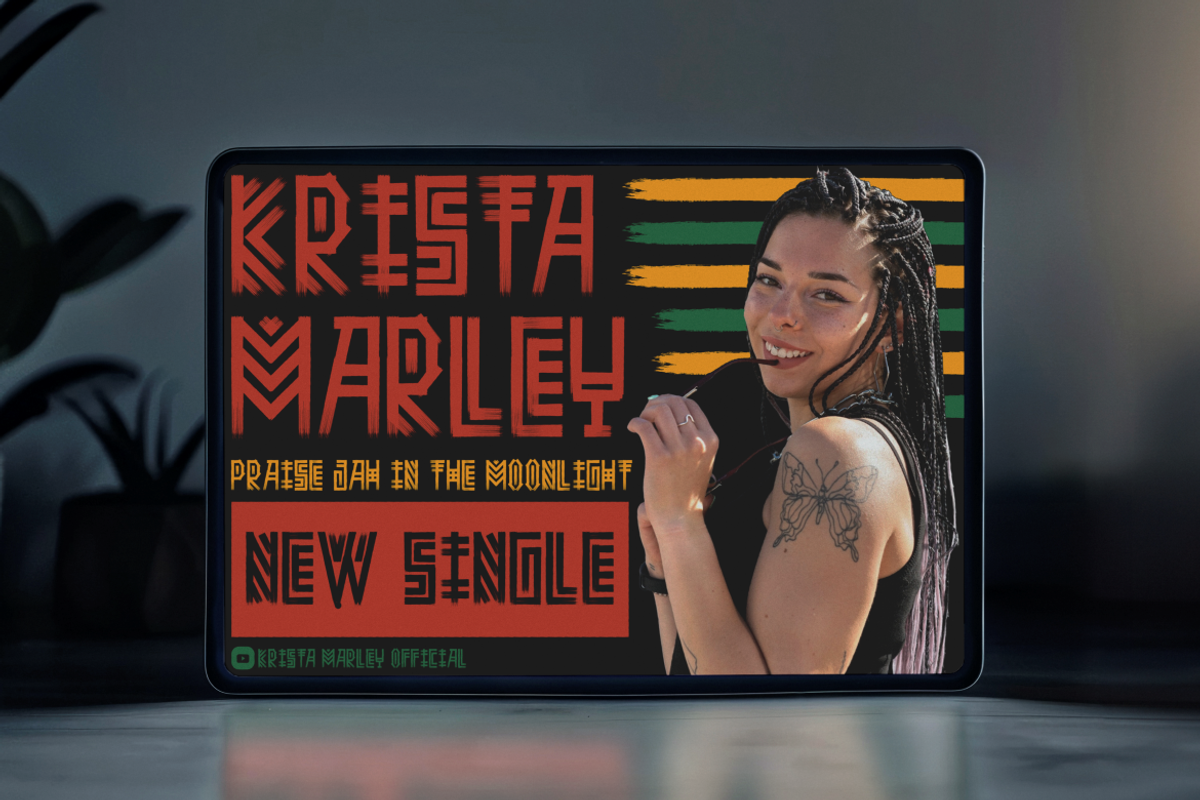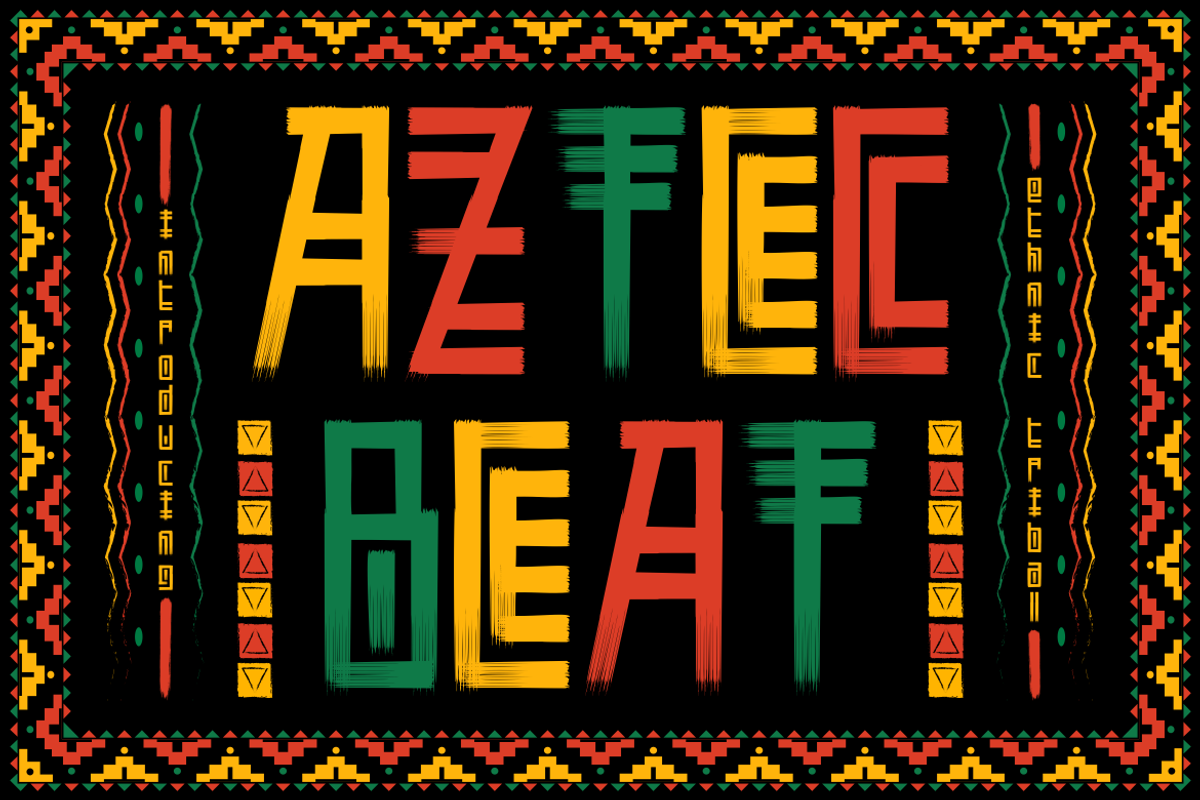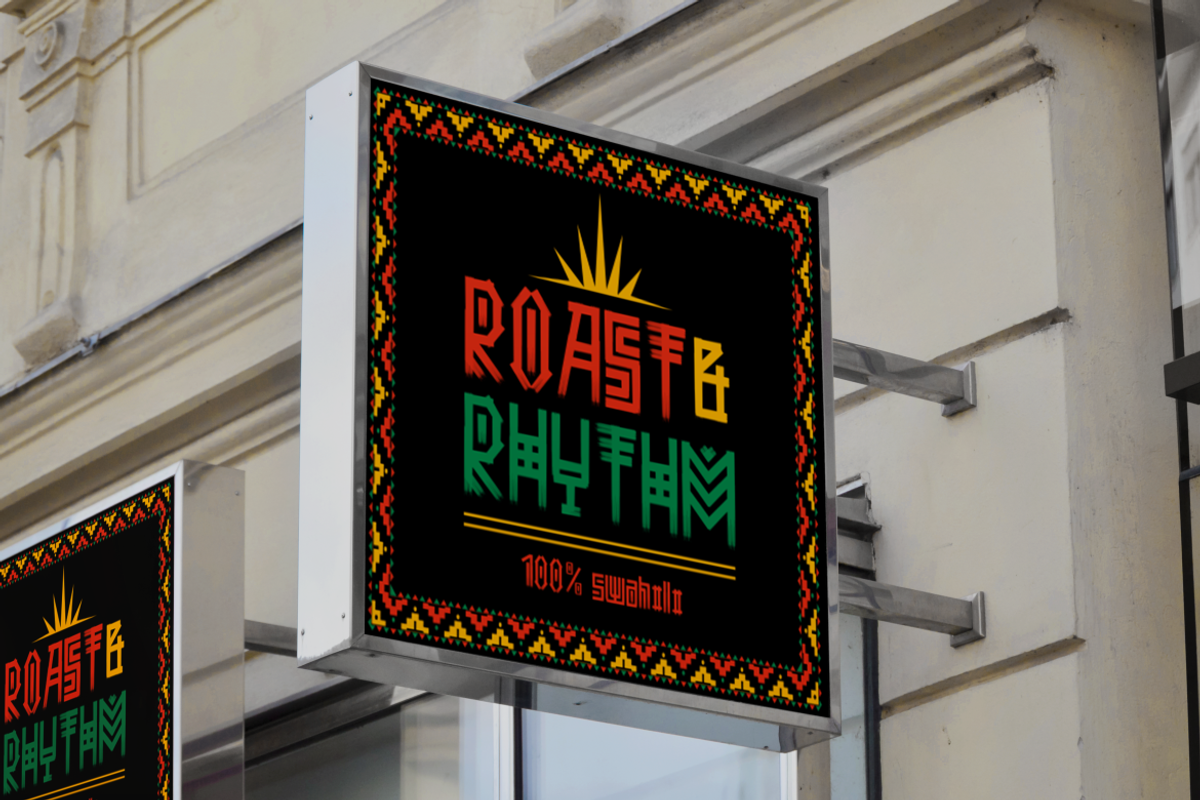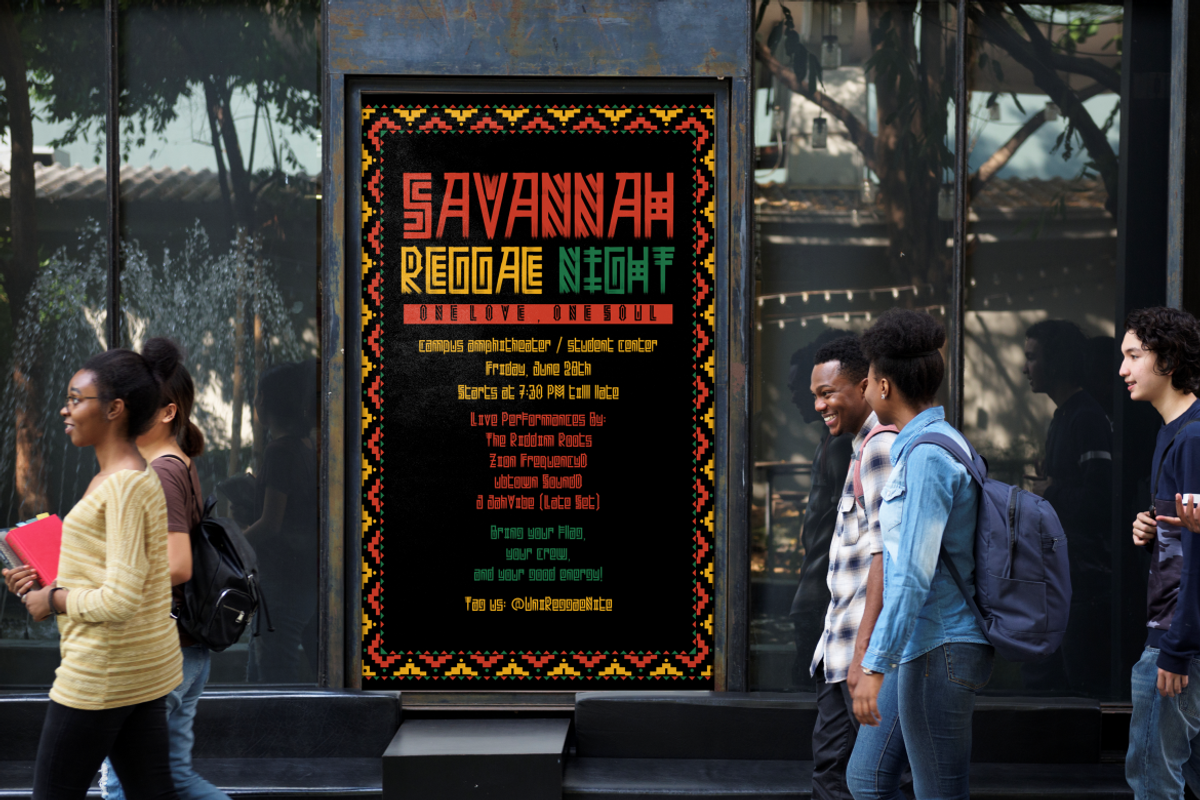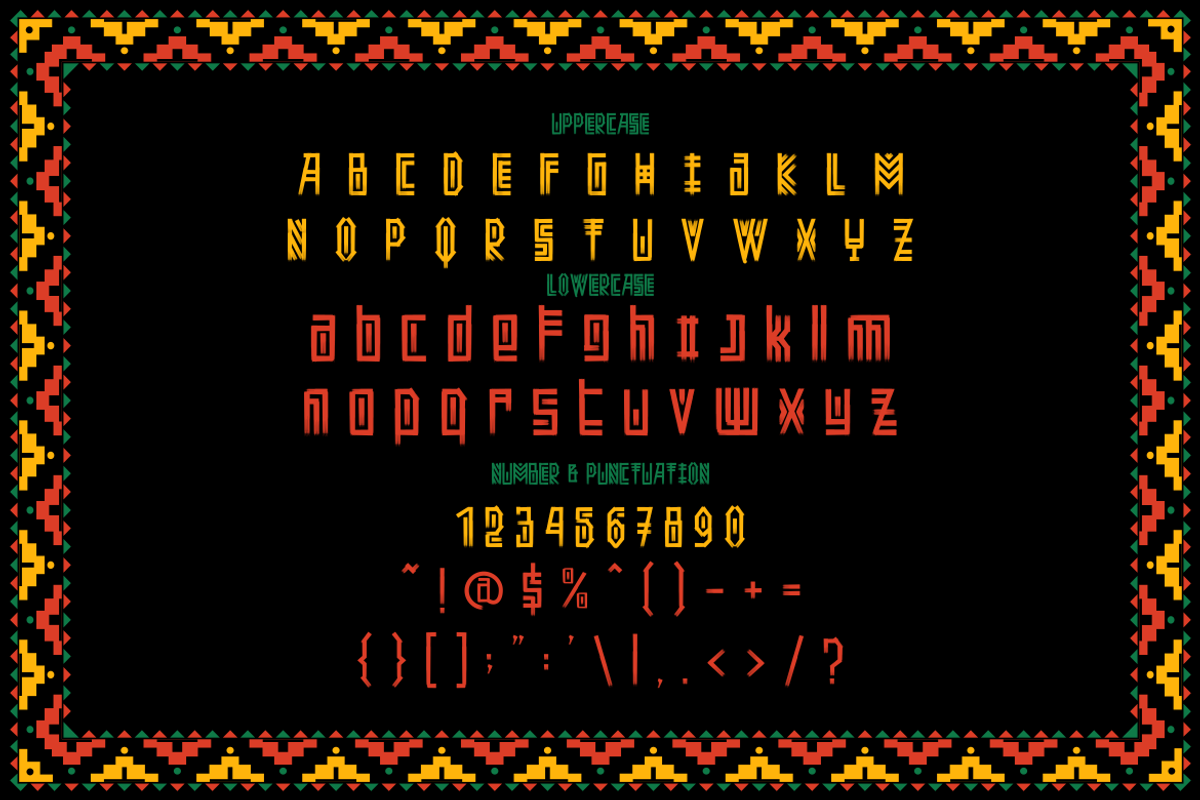
Aztec Beat Ethnic Tribal Font
Aztec Beat is a visually striking ethnic tribal font inspired by ancient traditions, indigenous patterns, and the colorful rhythm of cultural folklore. Designed with a bold geometric structure and hand-drawn brush texture, each letter delivers powerful visual impact. The characters reflect a deep connection to tribal artistry with a raw, handcrafted look—featuring solid verticals, sharp angular lines, and textured horizontal brush strokes. Decorative alternates and vibrant tones add rhythmic energy to the font, making it feel both ceremonial and modern.
Ideal for cultural branding and ethnic-themed visuals, Aztec Beat thrives in diverse applications—from reggae and world music posters to African-Caribbean food packaging, event titles, festival logos, traditional crafts, and spiritual-themed artwork. It works beautifully in logotypes, stickers, album covers, invitation cards, and stylized magazine headlines. The fusion of brush detail, Tiki-style shapes, and bold symmetry allows this font to elevate your message with authenticity and rhythm. Whether for tribal merchandise, handcrafted goods, or cinematic promotions, Aztec Beat brings heritage and voice into every design.